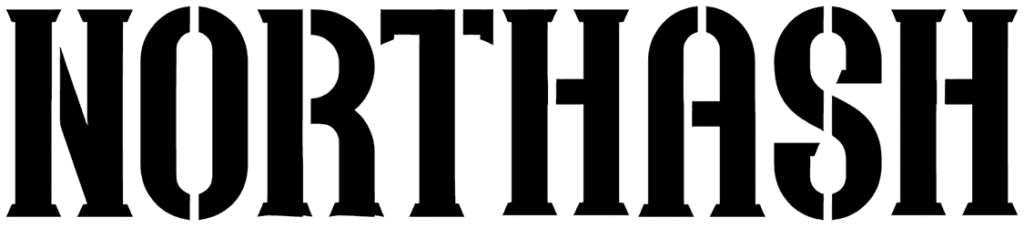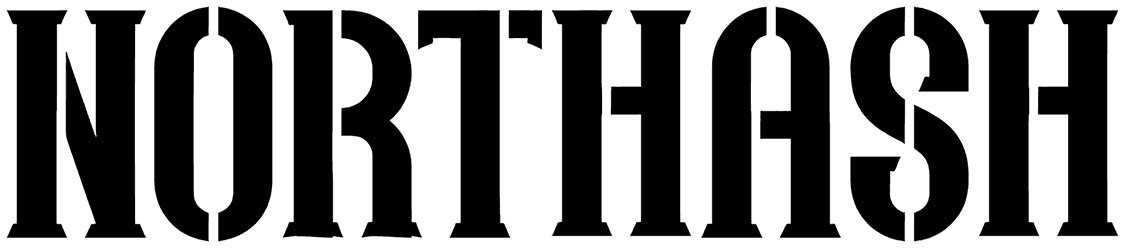
Northash Font
Check out our new stencil font with a bold, sturdy, disciplined texture. It conveys a sense of power and creativity that can make your design more memorable, but it doesn’t contain any lowercase letters. This font can be…
Check out our new stencil font with a bold, sturdy, disciplined texture. It conveys a sense of power and creativity that can make your design more memorable, but it doesn’t contain any lowercase letters. This font can be used for movie posters, military displays, branding projects, T-shirt prints, and game interfaces.